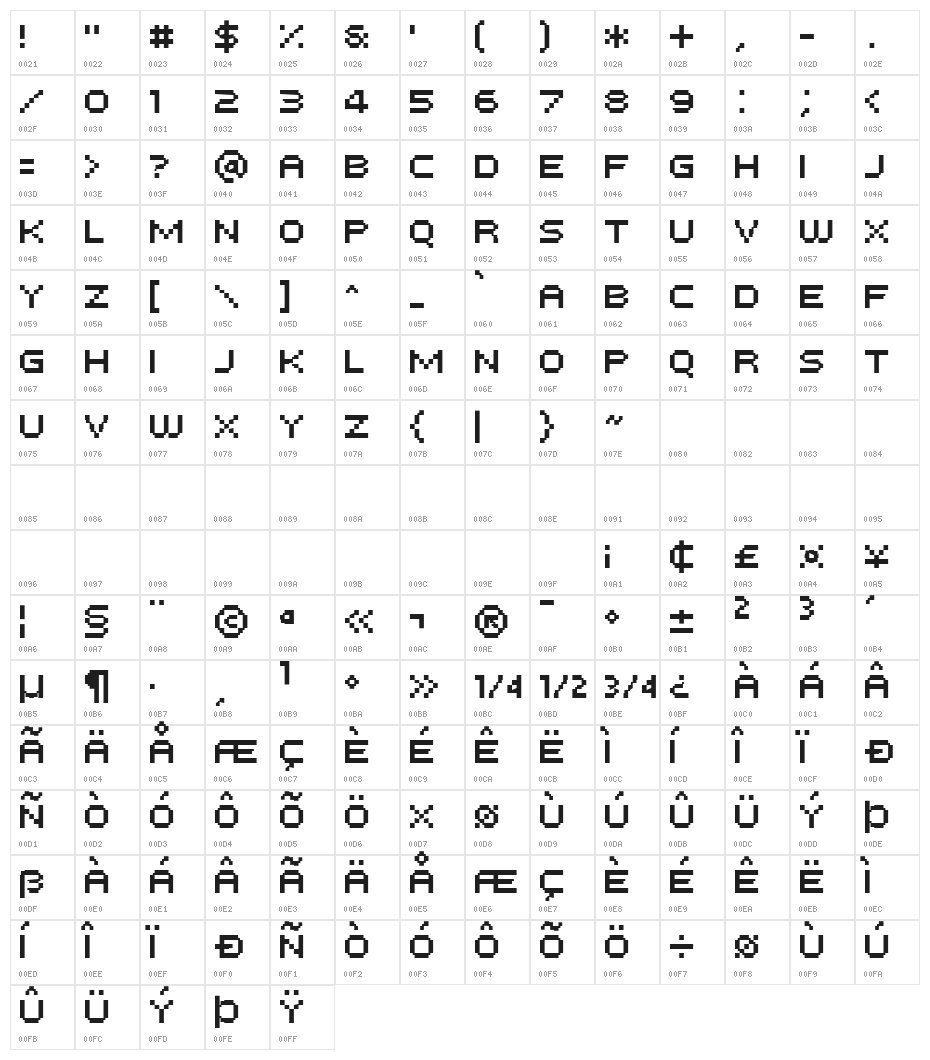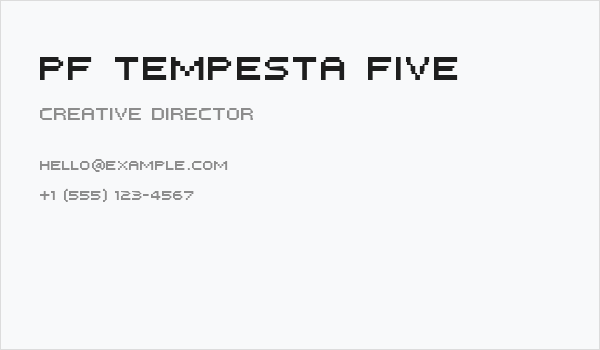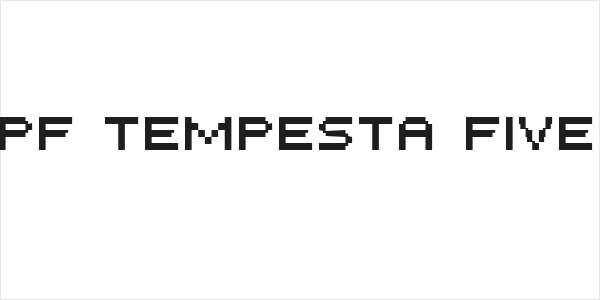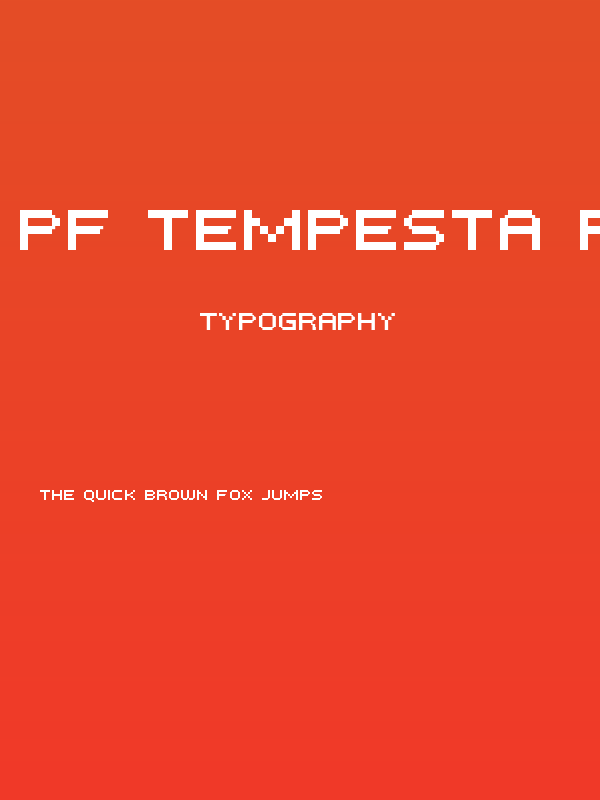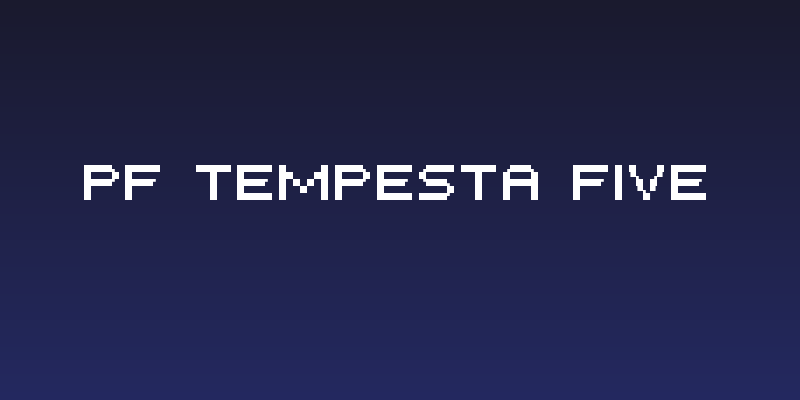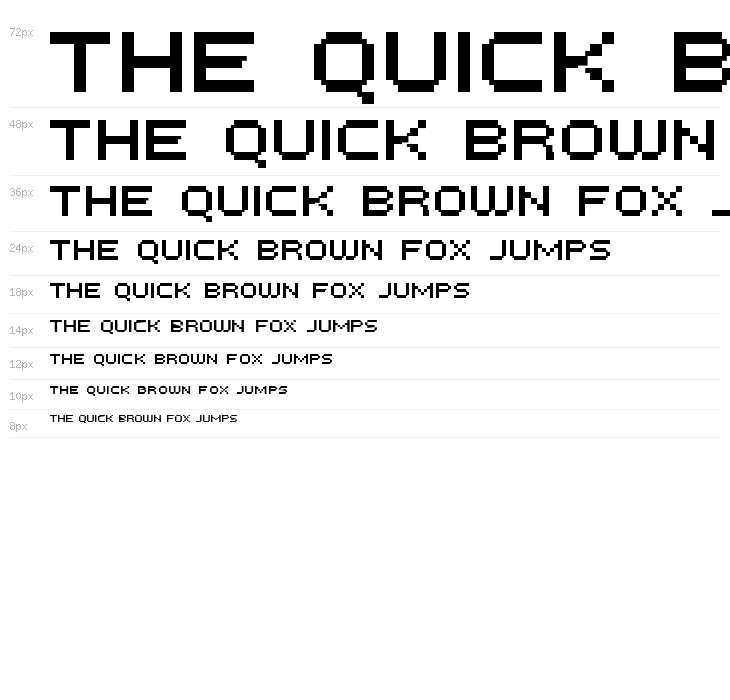
PF Tempesta Five Font
PF Tempesta Five Description
This font features a pixelated, blocky design that evokes a retro, digital aesthetic reminiscent of early computer graphics and video games. Each character is constructed with sharp, square edges, creating a uniform and structured appearance. The uppercase and lowercase letters maintain consistent proportions, enhancing readability while preserving the distinct pixelated style. Numbers and special characters are designed with the same attention to geometric precision, ensuring a cohesive look across all glyphs. This font's unique design is ideal for projects that aim to capture a nostalgic or tech-inspired feel.
| Overall Style | Retro, Digital |
| Proposed Projects | Ideal for video game design, retro-themed posters, digital art projects, and tech-related branding. |